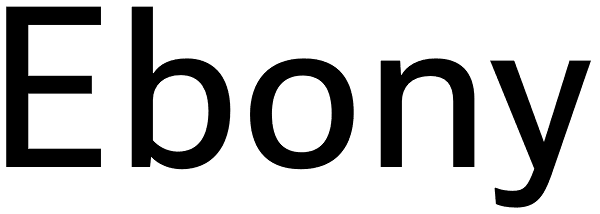
Ebony
Some typefaces need time to ripen; Burian and Scaglione made the first sketches for Ebony back in 2008, but it took a few years of maturing in a drawer to be developed into a multi-functional type family. While keeping in tune with TypeTogether’s...